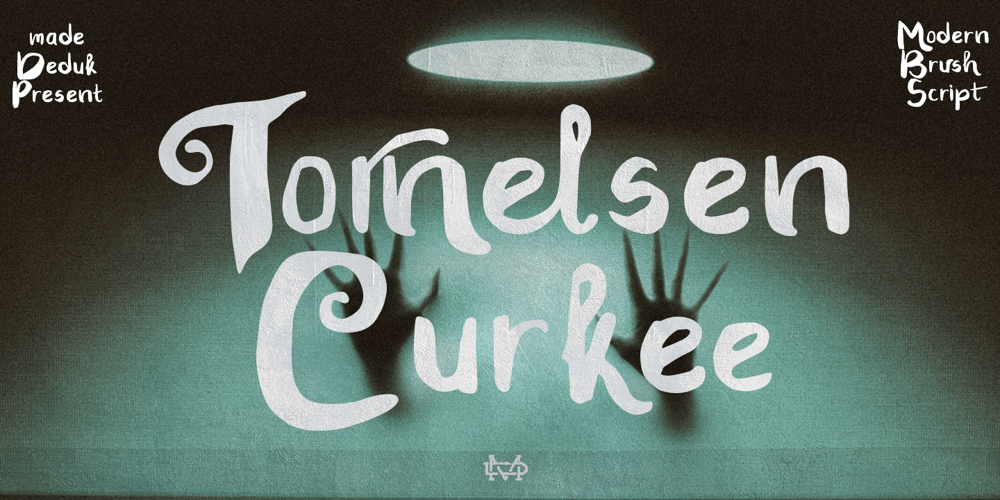
Tornelsen Curkee Font Family was designed by madededuk and published by madeDeduk. Tornelsen Curkee contains 1 styles and family package options. Really excited to introduce Tornelsen Curkee is a realistic brush script! Tornelsen Curkee will be perfect for all your designs project.Tornelsen Curkee Included: Uppercase Lowercase Number & Symbol International Glyphs Ligature Alternative Hope you enjoy it.